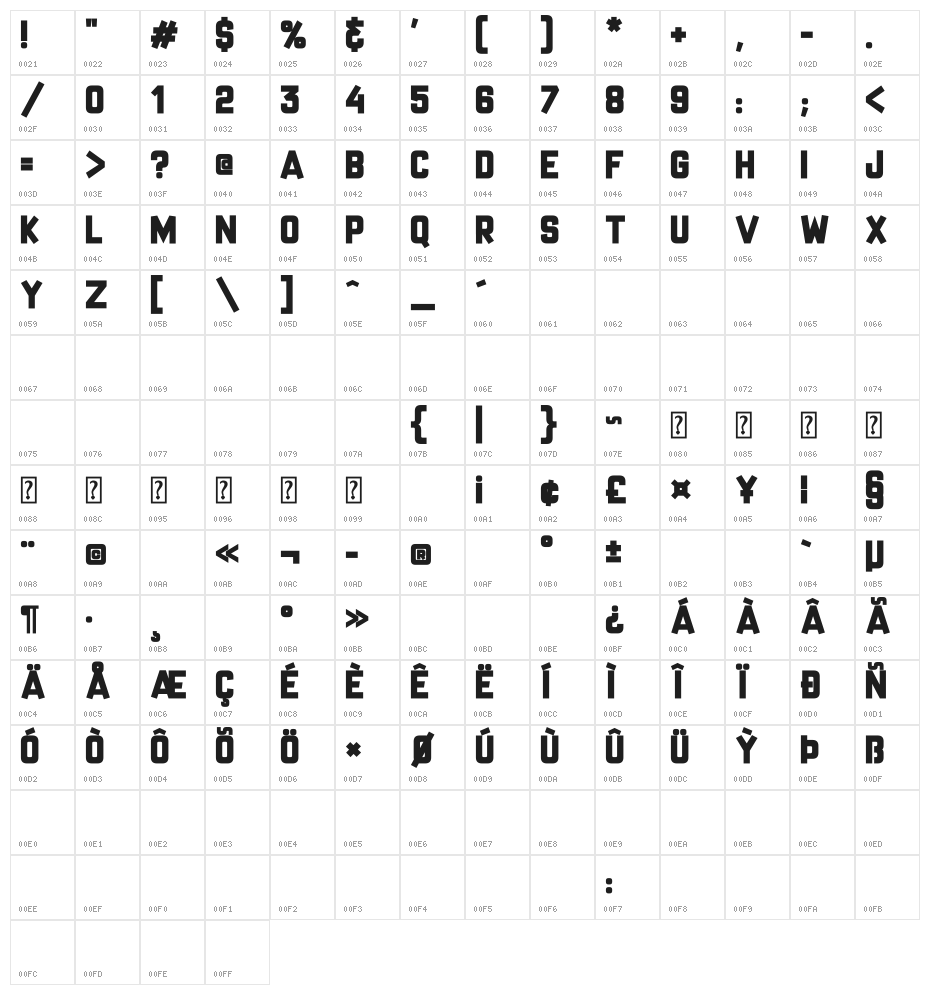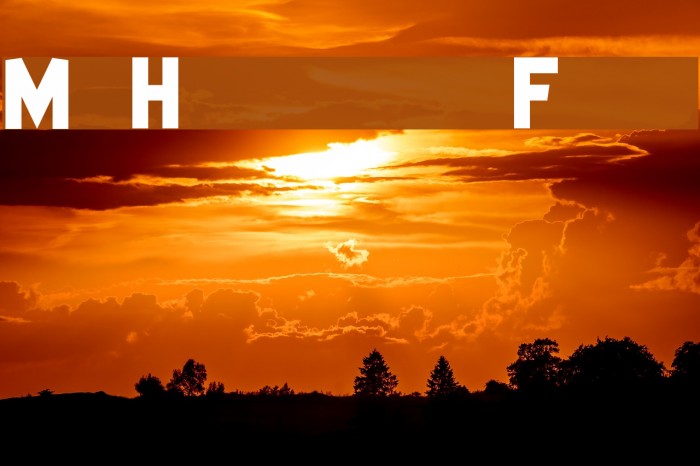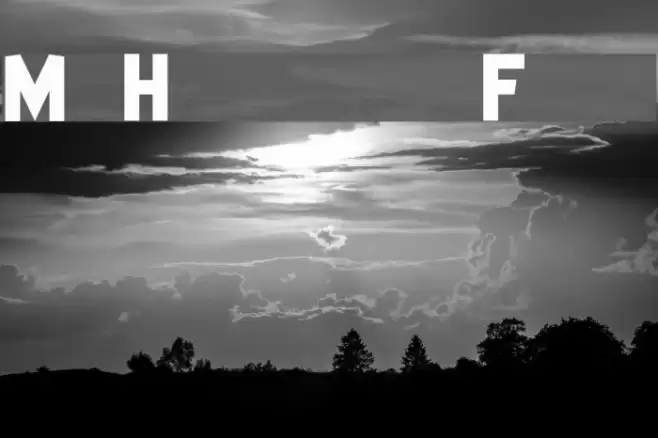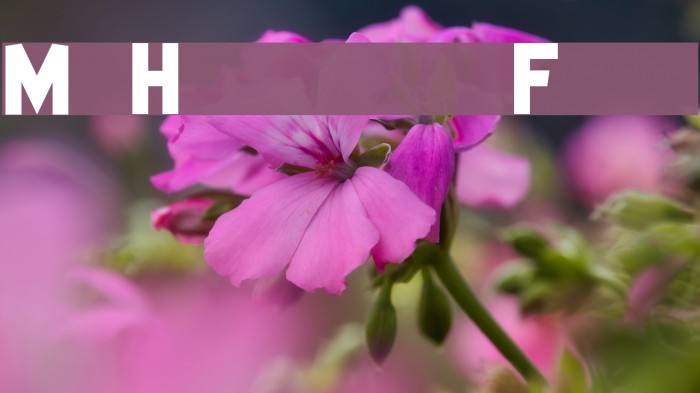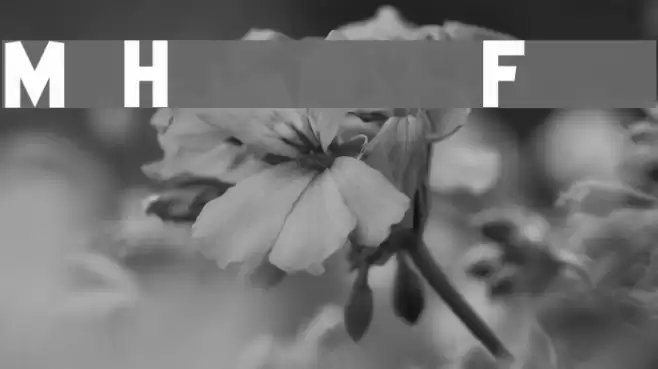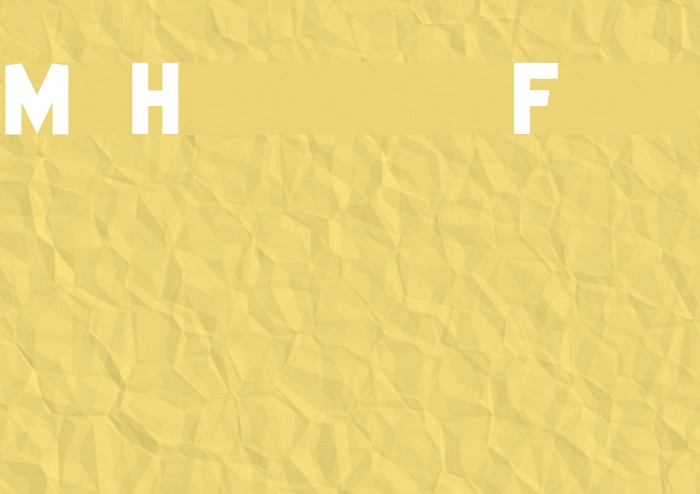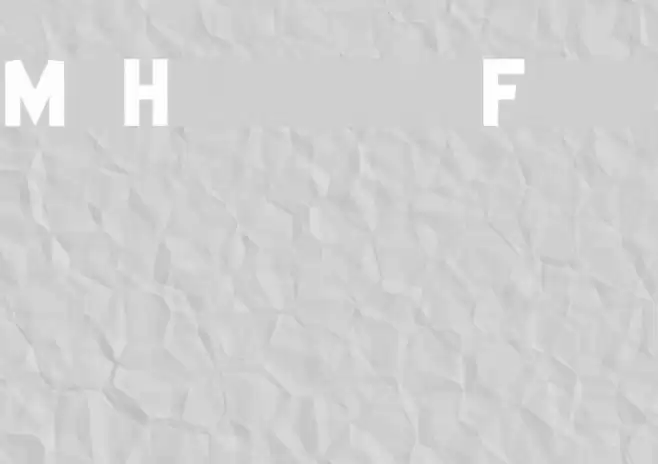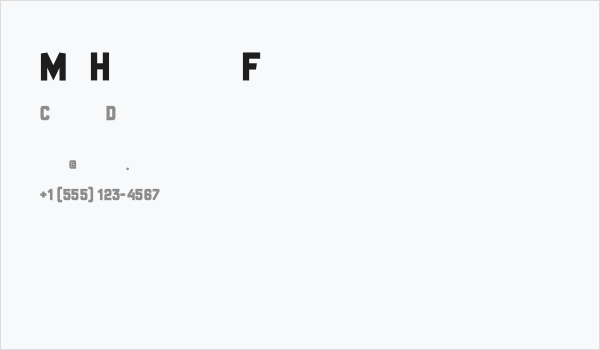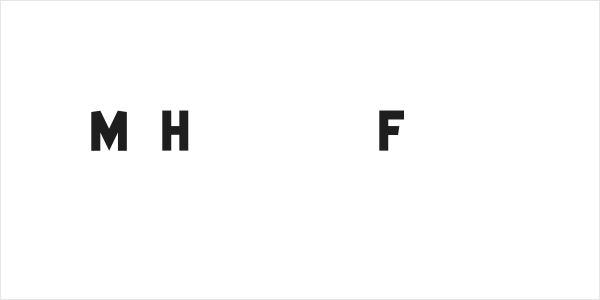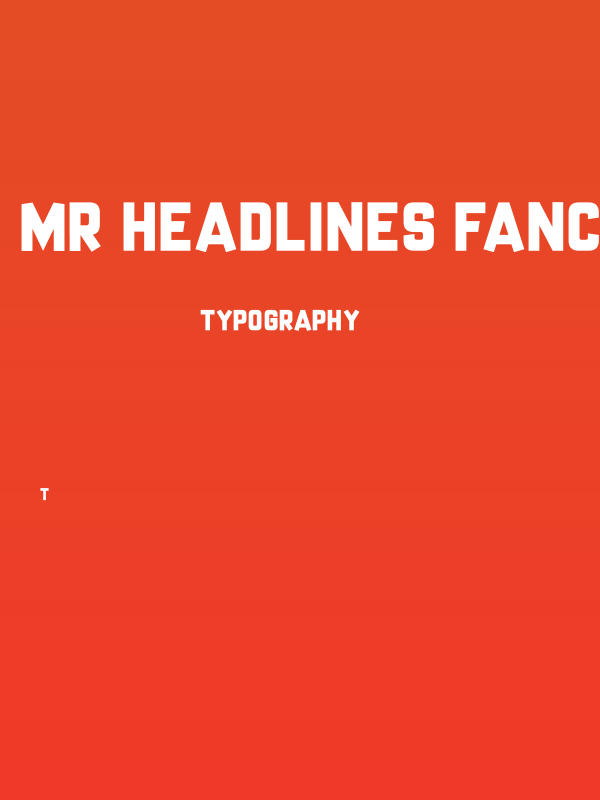
Mr Headlines Fancy Font
Mr Headlines Fancy Description
This font features bold, geometric letterforms with a strong presence, making it ideal for attention-grabbing headlines. The uppercase letters are blocky and robust, with consistent stroke widths that convey a sense of stability and strength. The numerals and special characters maintain this bold aesthetic, ensuring uniformity across all characters. The design is clean and modern, with a slight retro touch that adds character without compromising readability. Its solid structure and uniformity make it versatile for various design applications.
| Proposed Projects | Ideal for use in branding, advertising, posters, and any project requiring a strong visual impact. |